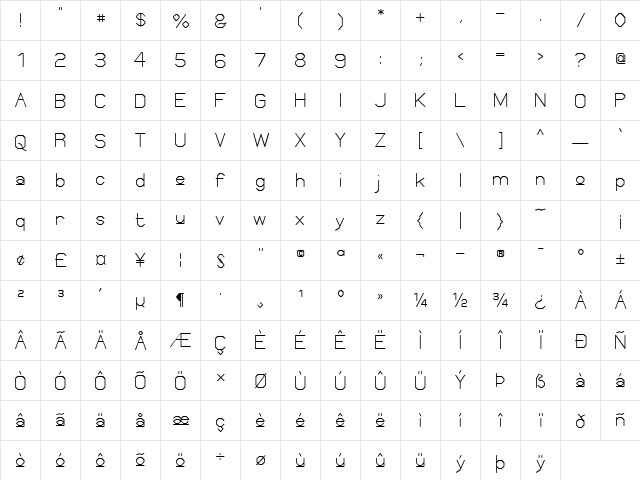
Elgethy Square Upper Regular Font Preview
Elgethy Square Upper Regular
Elgethy Square Upper Regular Font Details
| Foundry | Graham Meade |
Design Context for Elgethy Square Upper Typeface
Elgethy Square Upper takes a measured approach to typography — its balanced proportions and neutral character make it a reliable workhorse for both digital and print work.